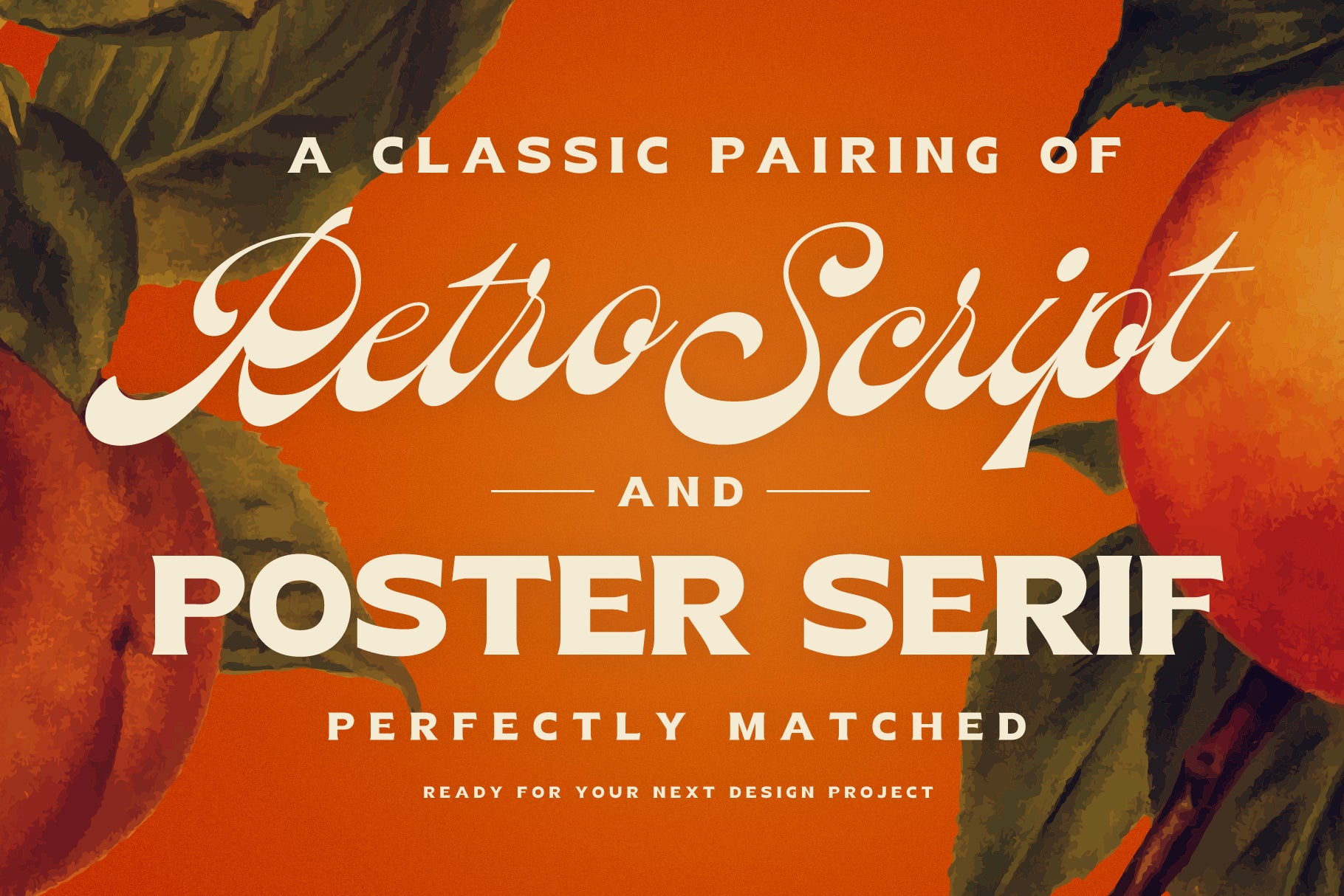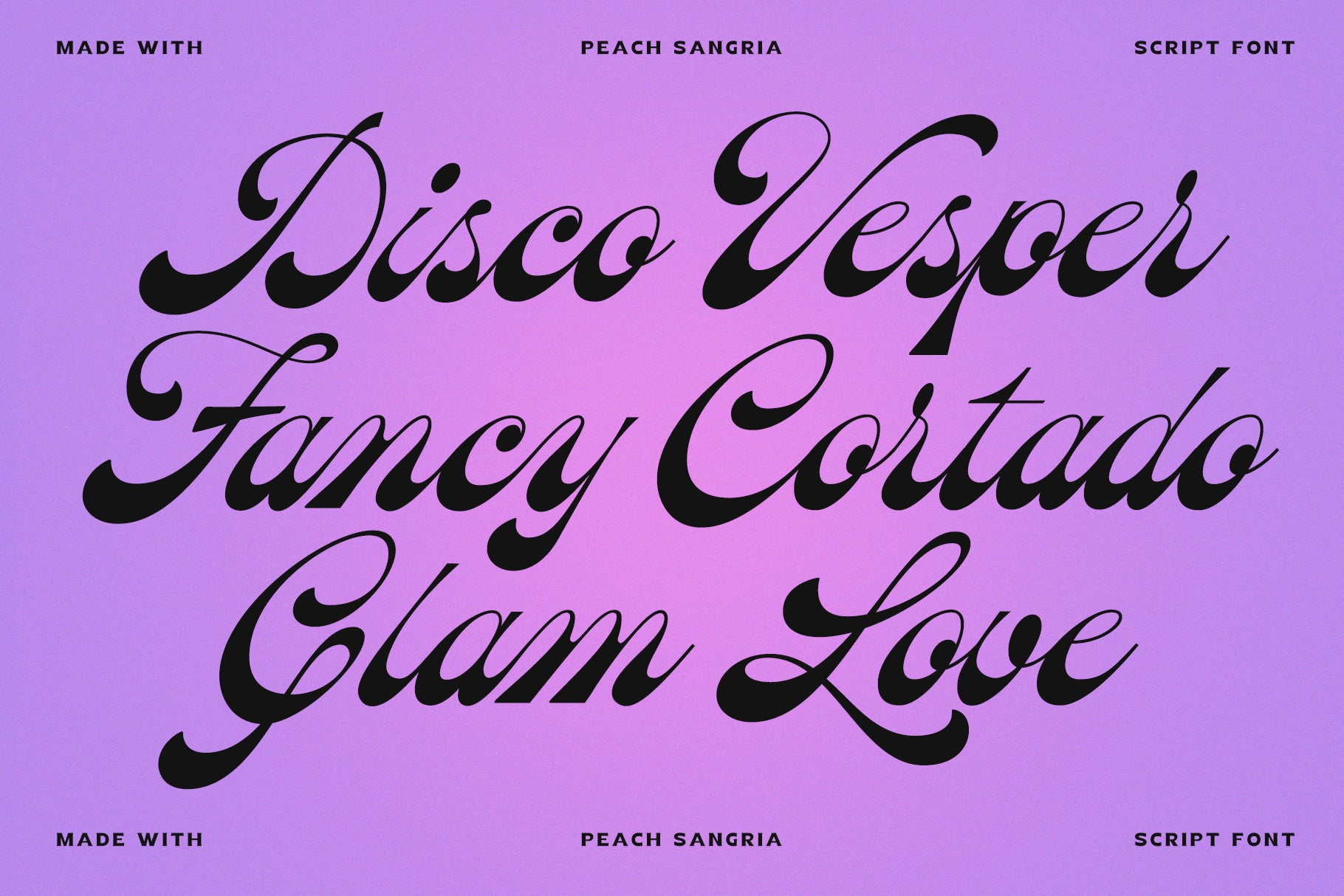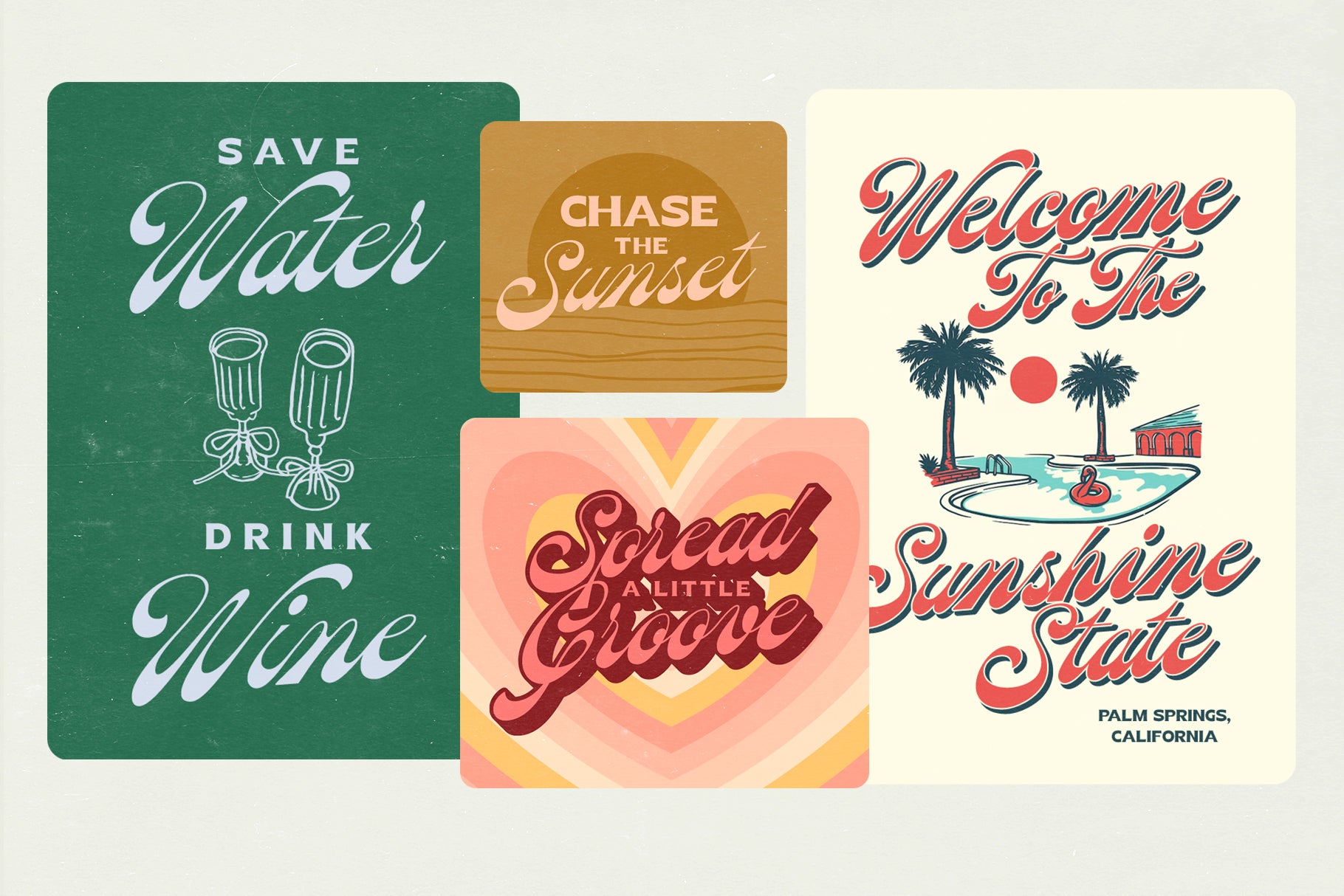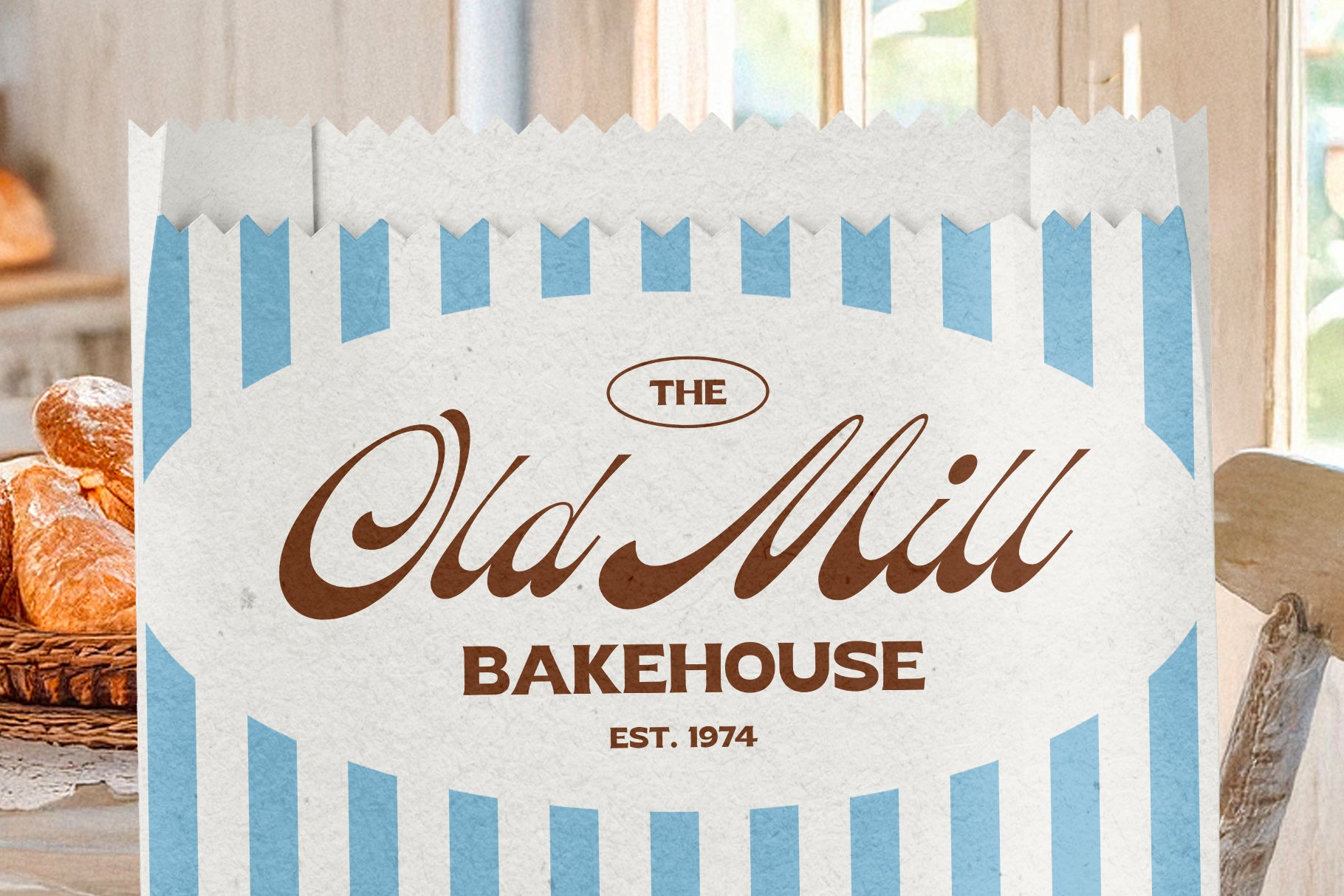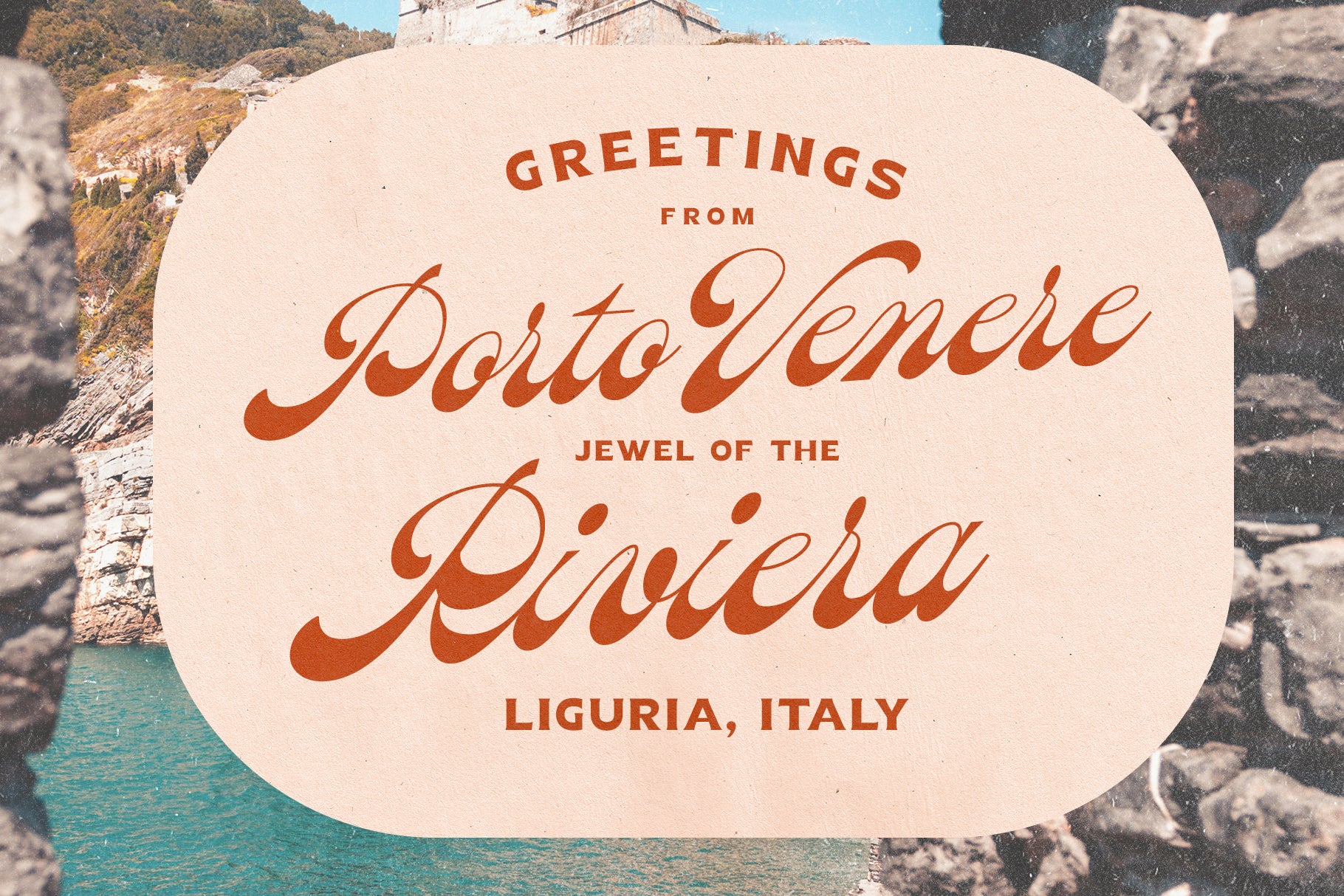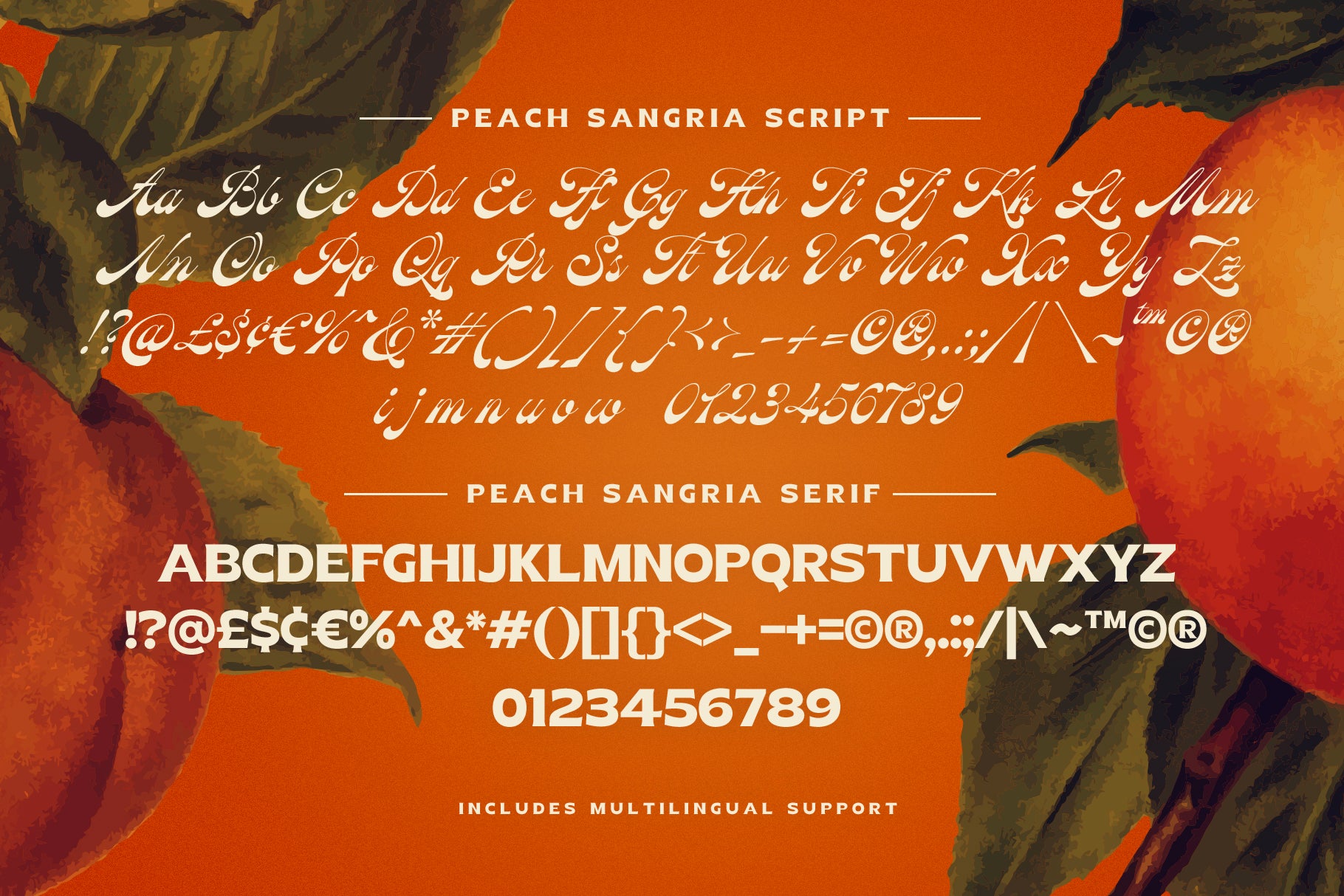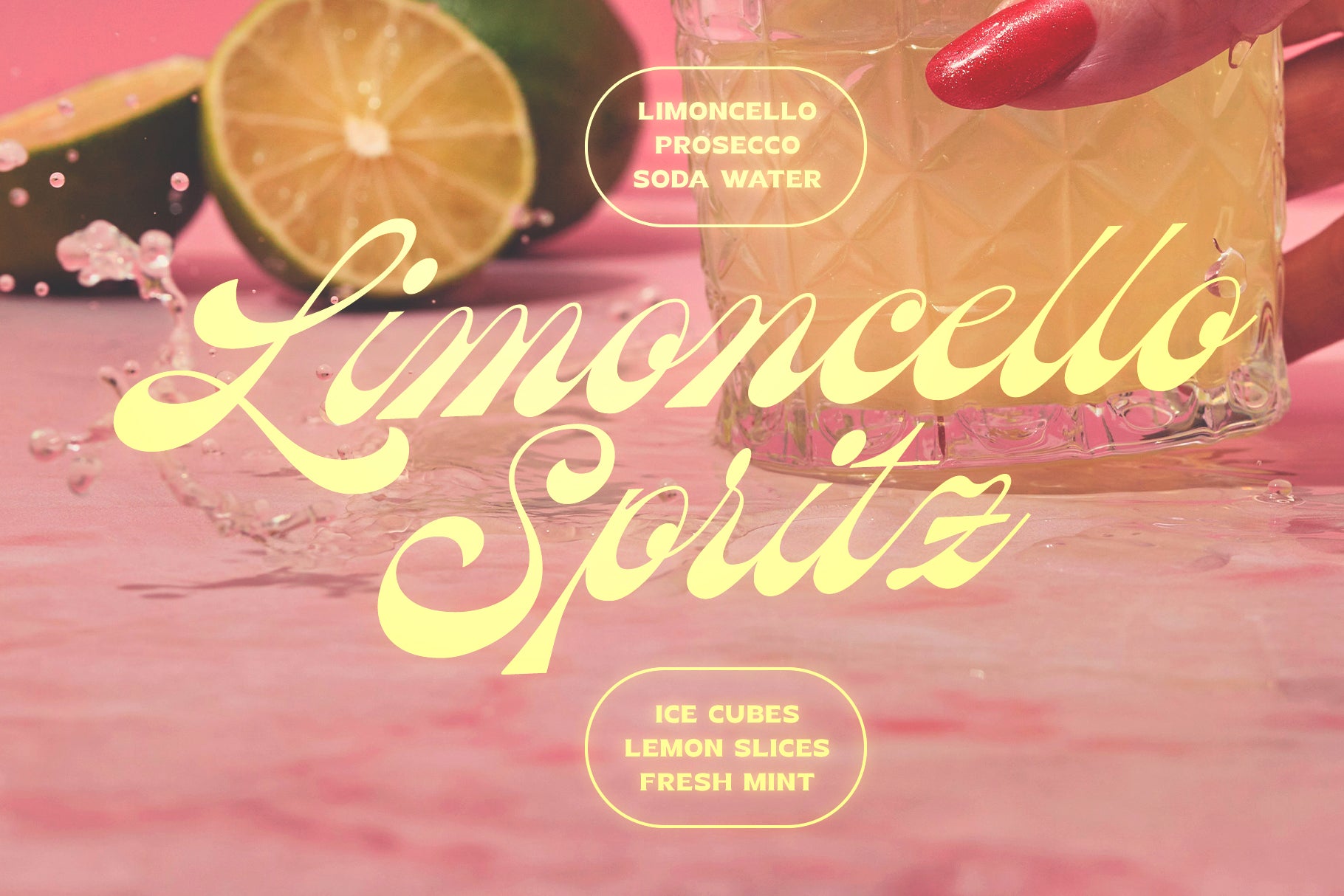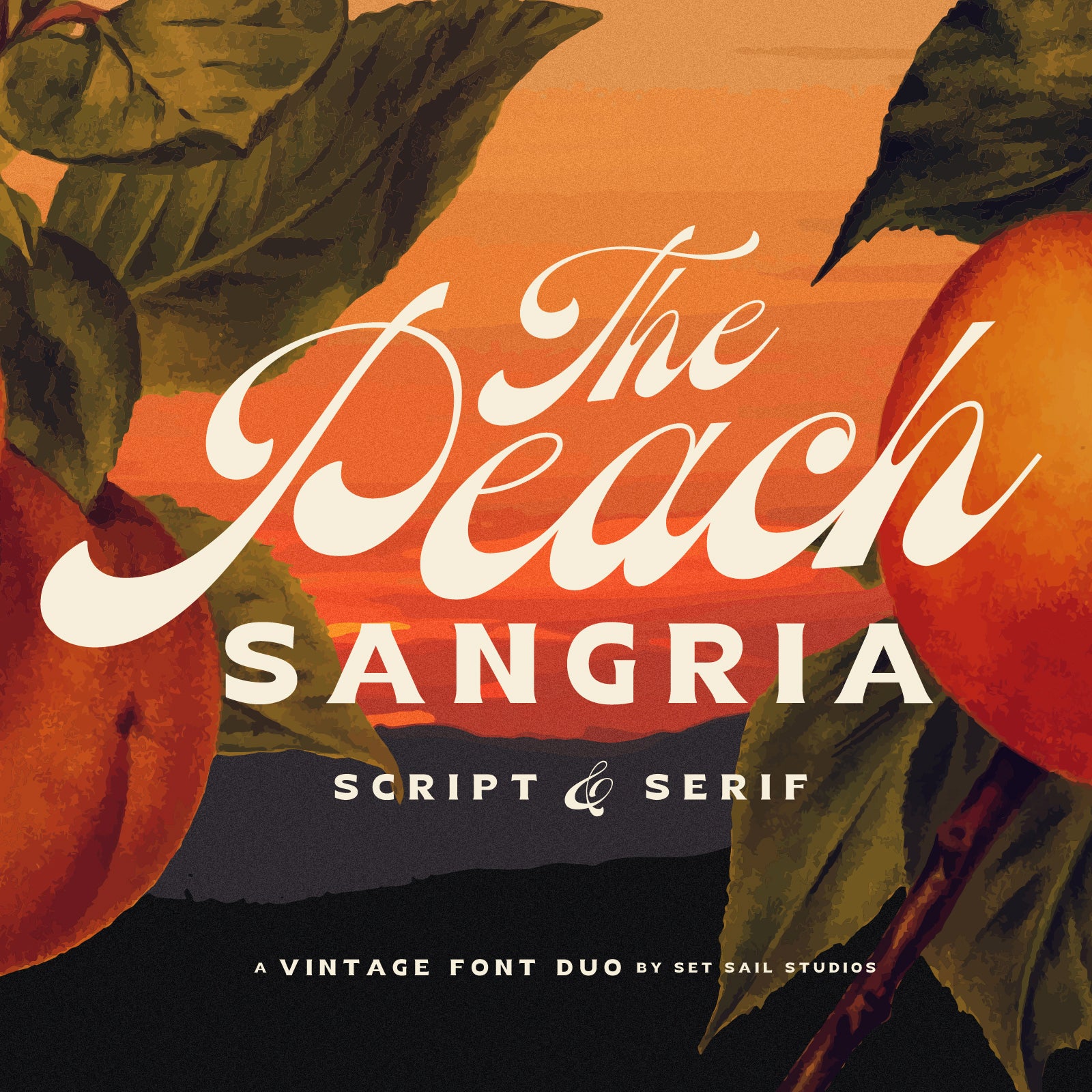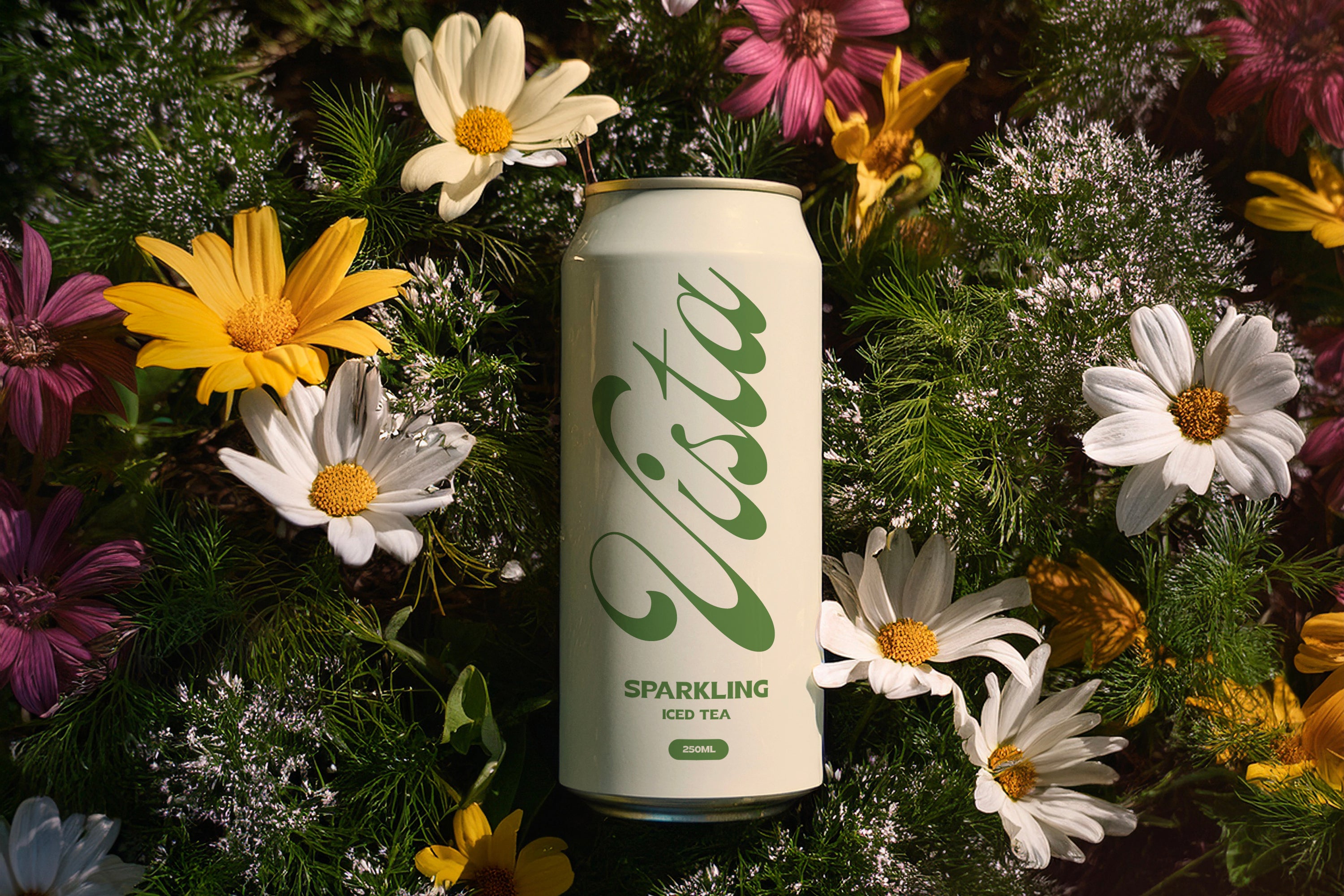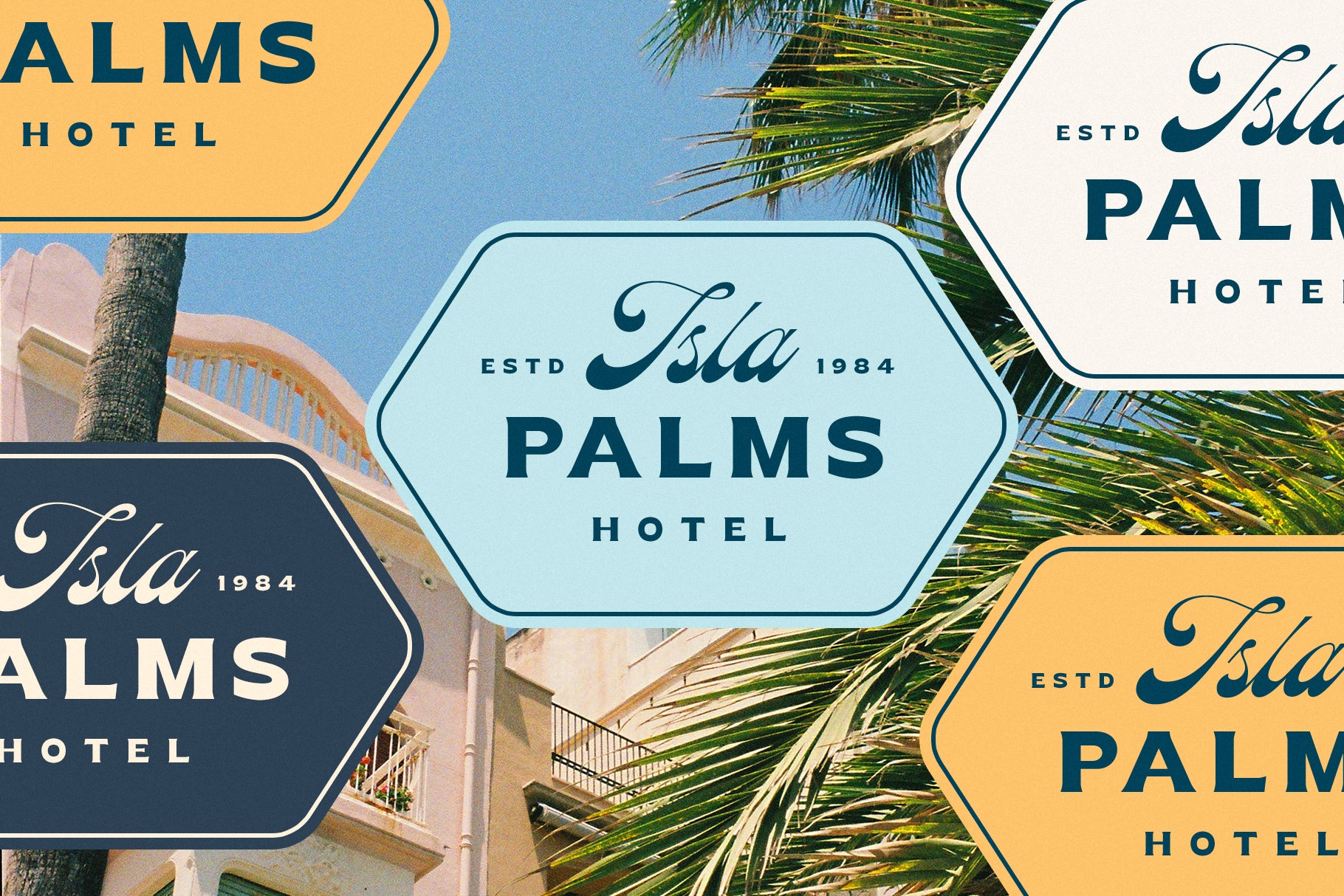
Peach Sangria Font Duo
The Peach Sangria Font Duo includes a flowing bottom-heavy script font and a chunky serif font, designed to complement each other. The script font features a full set of uppercase, lowercase, numerals, and punctuation, along with 7 stylistic alternate characters, while the serif font provides uppercase characters, numerals, and punctuation, supporting multiple languages.